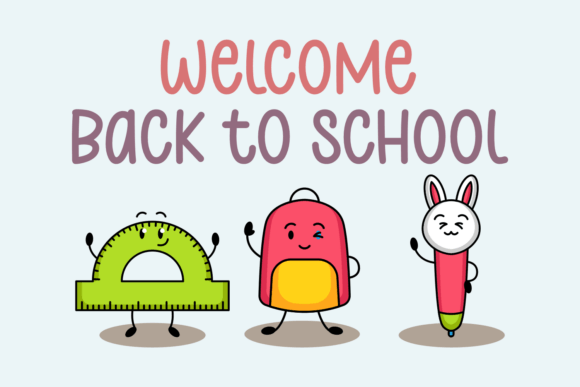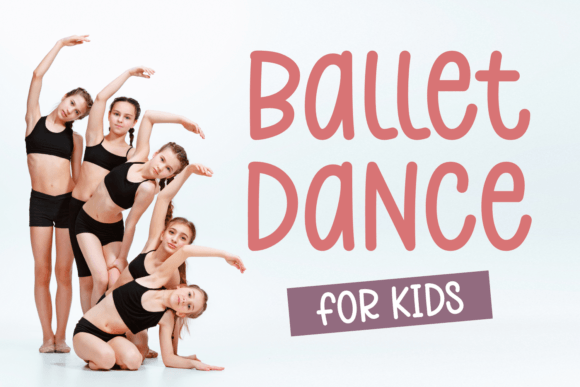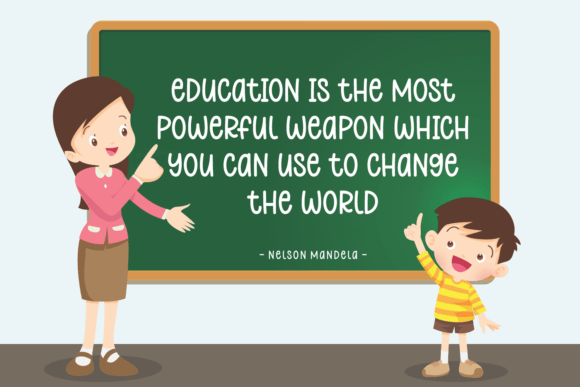
Introduction to Pretty Teacher Font
Pretty Teacher is a cute, handwritten font that brings a playful and friendly vibe.
With its rounded letters and whimsical style, it feels fun and inviting, perfect for projects like childrenโs books, posters, or any creative work that needs a cheerful touch .